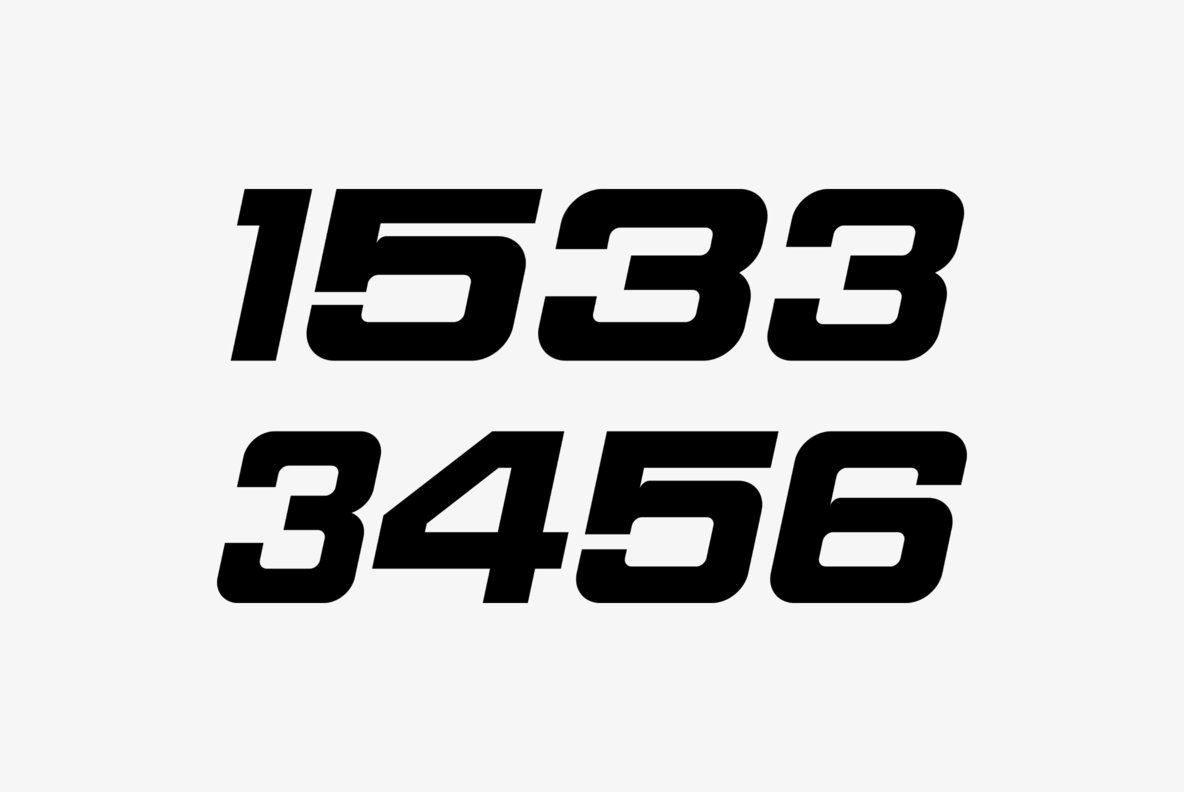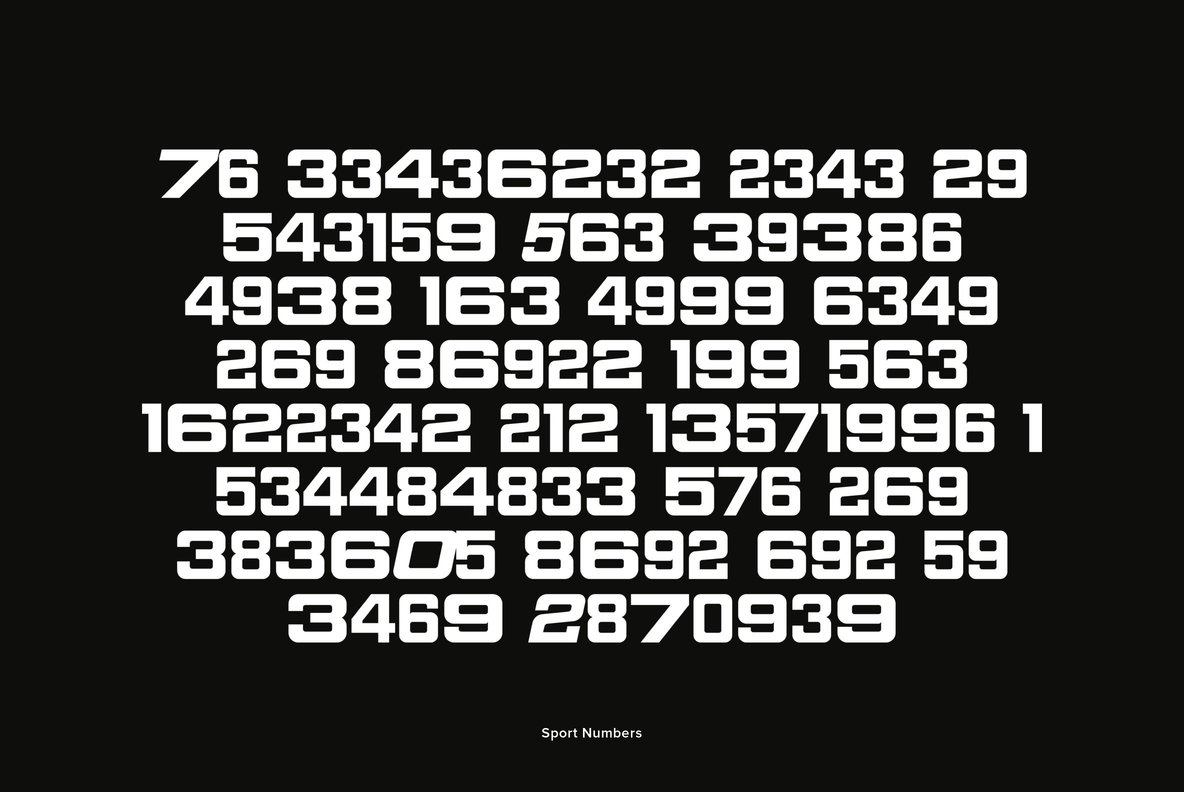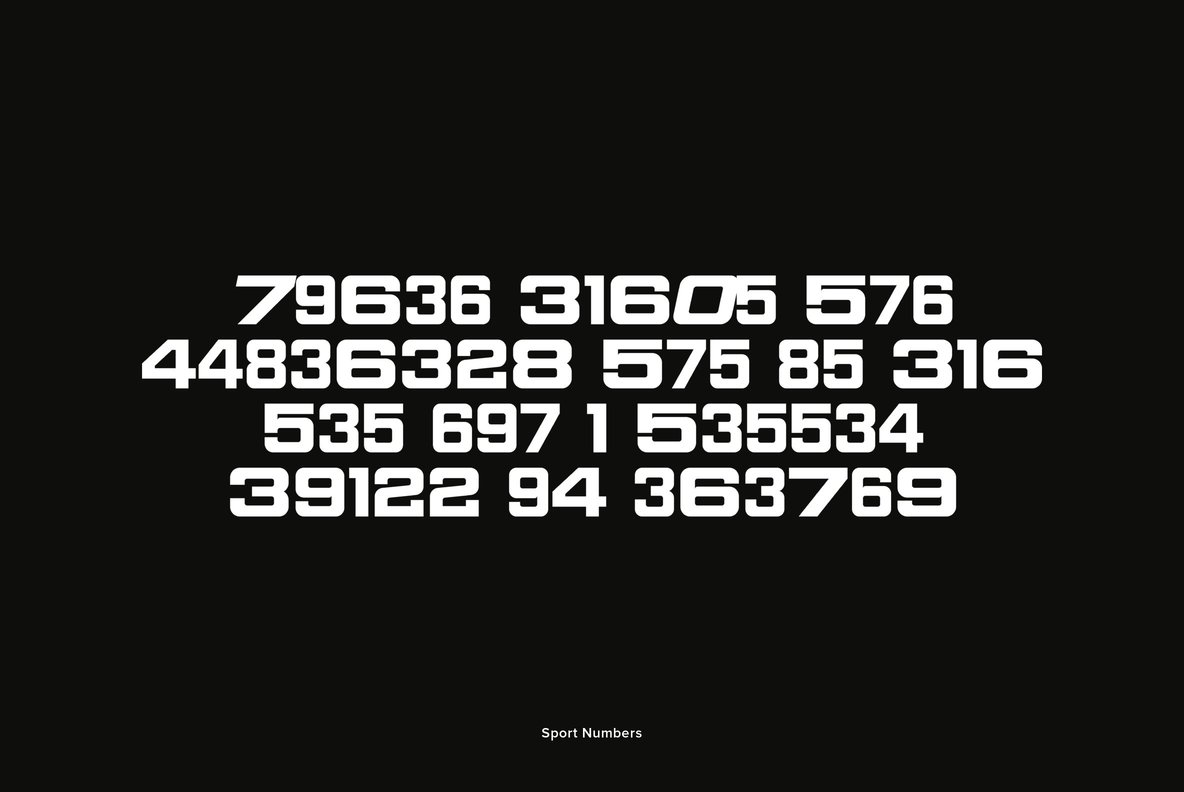
Sport Numbers Font
Sport Numbers
Sport Numbers contains classic sport number designs, similar to those that appear on sport uniforms and competition vehicles, in the proportions of 6 x 10, 8 x 10, 10 x 10, and 12 x 10, both vertical and oblique. The vertical numbers are located under the character set and the oblique numbers are located under the respective keys of the shift + character set.